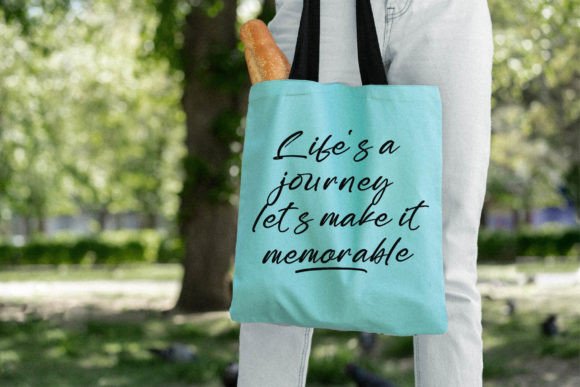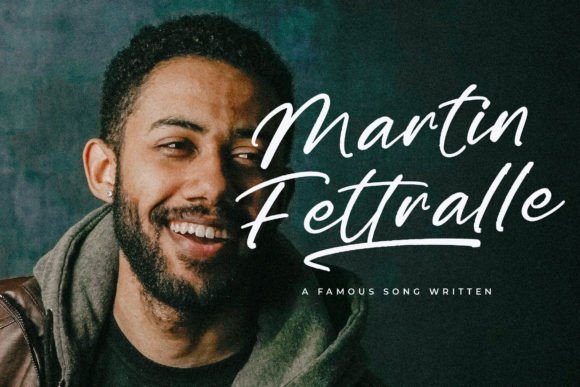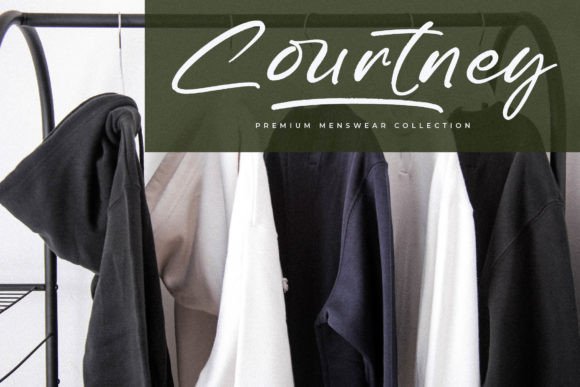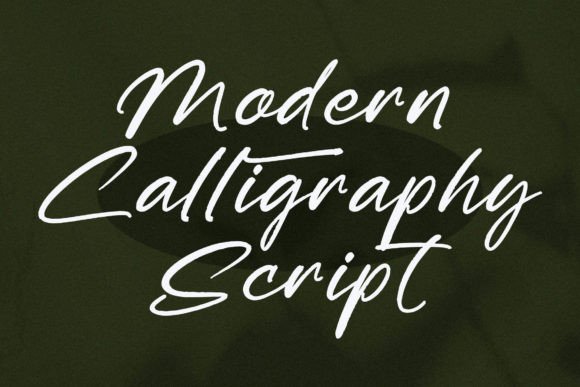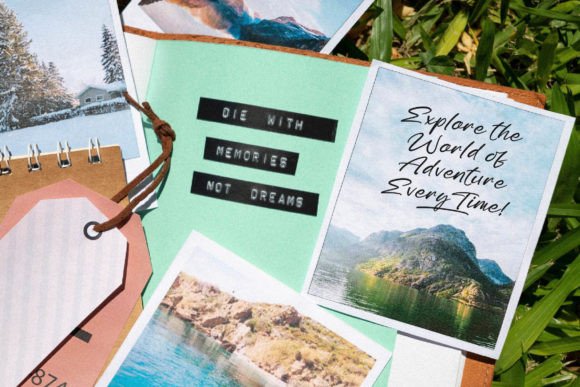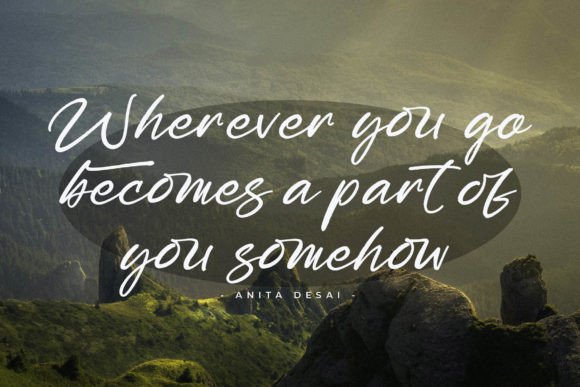
Introduction to Roblesttoi Font
Roblesttoi is an organic and beautiful decorative font, featuring lovely curves.
Key Features of Roblesttoi Font
Why Choose Roblesttoi Font?